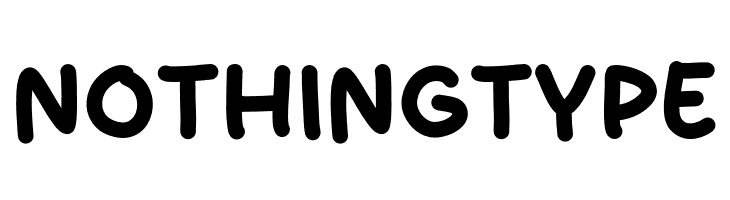
A bold, futuristic font with geometric shapes and sharp angles.
A flowing, cursive script font with elegant loops and varying stroke widths.
A bold, block-like font with a strong, geometric style.
A bold, sharp serif font with a vintage, gothic flair.
A bold, rugged font with a distressed, grunge-like appearance.
A bold, high-contrast serif font with elegant curves and strong presence.
A bold, geometric font with sharp angles and a futuristic style.
A bold, flowing script font with elegant, cursive connections.
A whimsical, vine-like decorative font with playful and eerie characteristics.
A bold, playful font with an irregular, splattered texture.
A bold, dynamic font with sharp, angular strokes conveying energy and intensity.
A bold, decorative font with high contrast and a stencil-like appearance.
A futuristic, segmented line font with a digital and modern aesthetic.
A playful, bold handwritten font with dynamic strokes and a casual feel.
A traditional blackletter font with intricate, ornate letterforms and a historical aesthetic.
A dynamic, flowing script font with elegant cursive letterforms.
An elegant and flowing script font with charming cursive details.
A modern, thin sans-serif font with clean lines and a minimalist design.
An elegant italic font with decorative, calligraphic strokes.
A modern, geometric font with high contrast and artistic flair.
A bold, flowing script font with interconnected characters and a playful style.
A playful, handwritten font with a casual and energetic style.
A bold, flowing script font with a handwritten, artistic style.
A dynamic, cursive script font with elegant italic styling.
A playful, modern handwritten font with rounded edges and consistent character height.
A whimsical, hand-drawn font with a playful and artistic style.
A bold, jagged, and staggered font with an edgy and rugged style.
A graceful script font with flowing, connected letters and high contrast strokes.
A dynamic and elegant script font with a handwritten appearance.
An elegant, flowing script font with smooth, cursive letterforms.
A dot-matrix style font inspired by digital displays and LED screens.